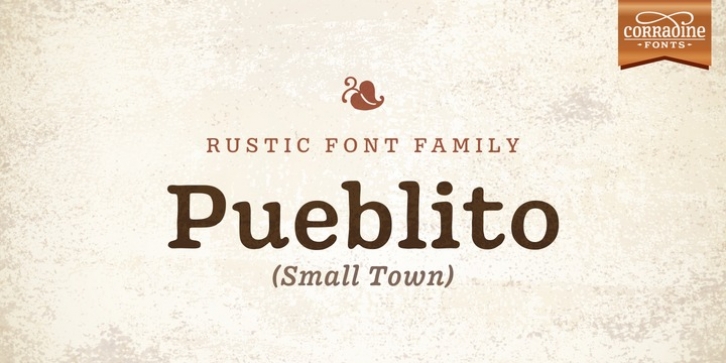
Pueblito downloadDesigner: Manuel Eduardo Corradine
Publisher: Corradine Fonts
Pueblito is a hand drawn font with a rustic and antique appearance. The family consists of twelve fonts in six weights plus a set of ornaments in order to compose all kind of texts. Using Pueblito in your projects, you can obtain an original aged flavor and just a subtle texture effect will help you to obtain the perfect look.